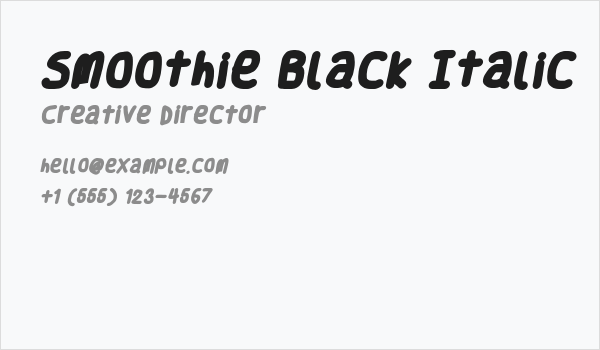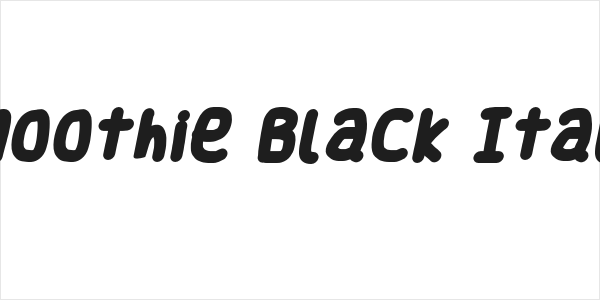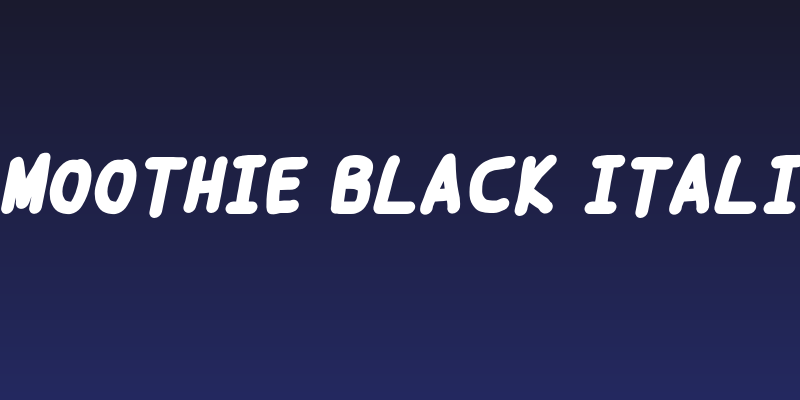
Smoothie Black Italic Font
Smoothie Black Italic Description
This font features a bold and playful style with an italic slant, giving it a dynamic and energetic appearance. The characters are rounded and smooth, creating a friendly and approachable feel. The strokes are thick and consistent, contributing to its bold presence. The font maintains a uniform weight throughout, enhancing readability while still being visually striking. Its informal and casual vibe makes it suitable for creative and fun projects. The spacing between characters is moderate, ensuring clarity and legibility even at smaller sizes.
| Proposed Projects | Ideal for children's books, playful branding, posters, and social media graphics. |